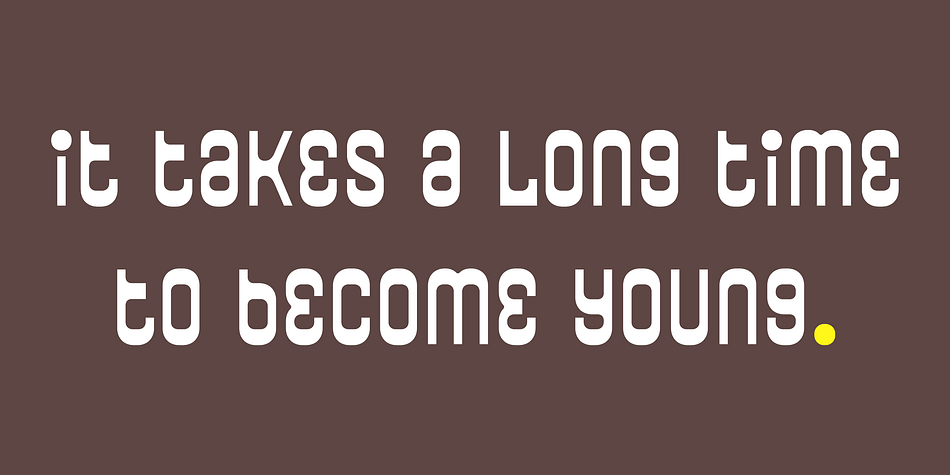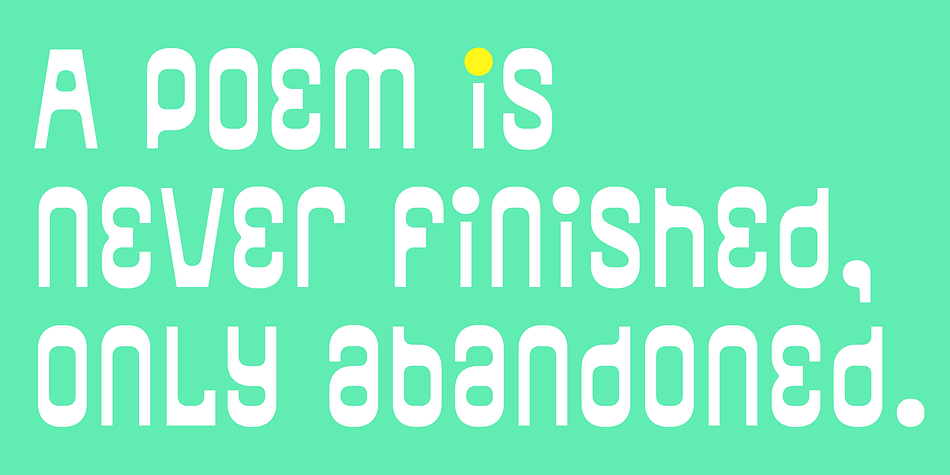
African Elephant Trunk is a display sans font published by Dharma Type.
Based on retro vinyl records in the early and middle of 20th century. This font include small capital for advanced typography.